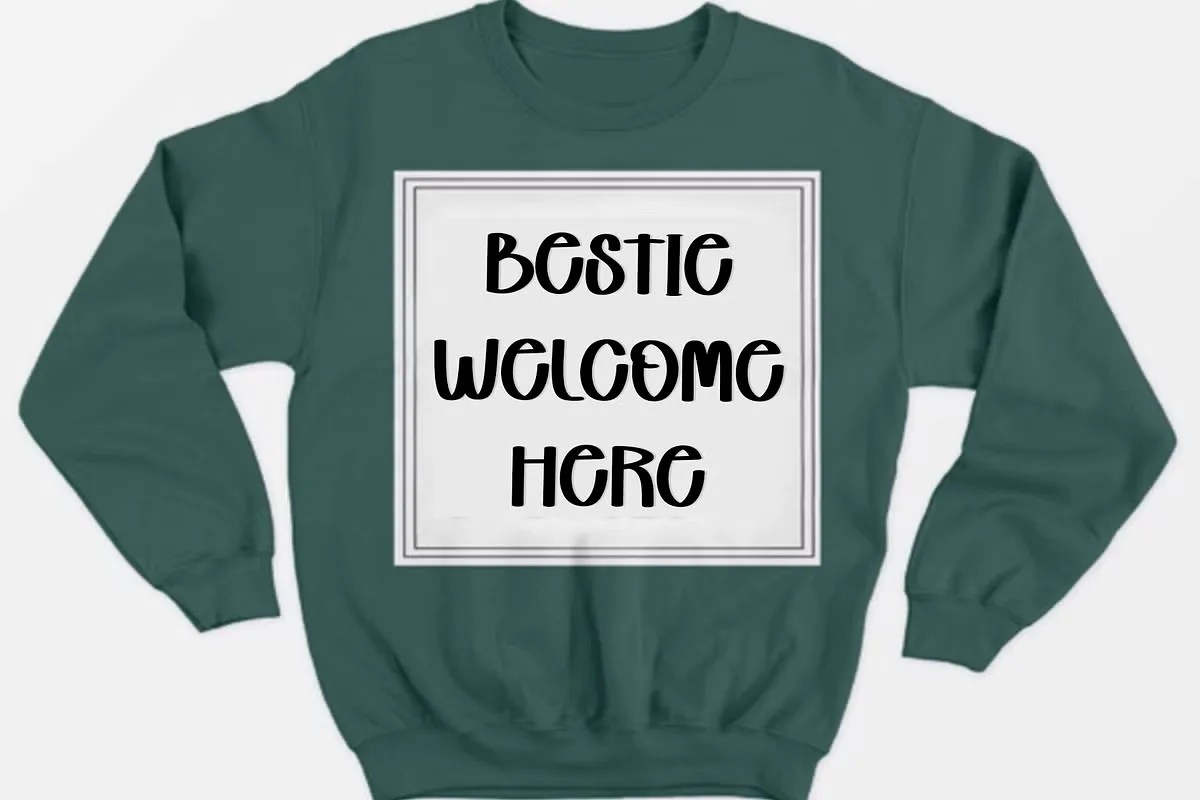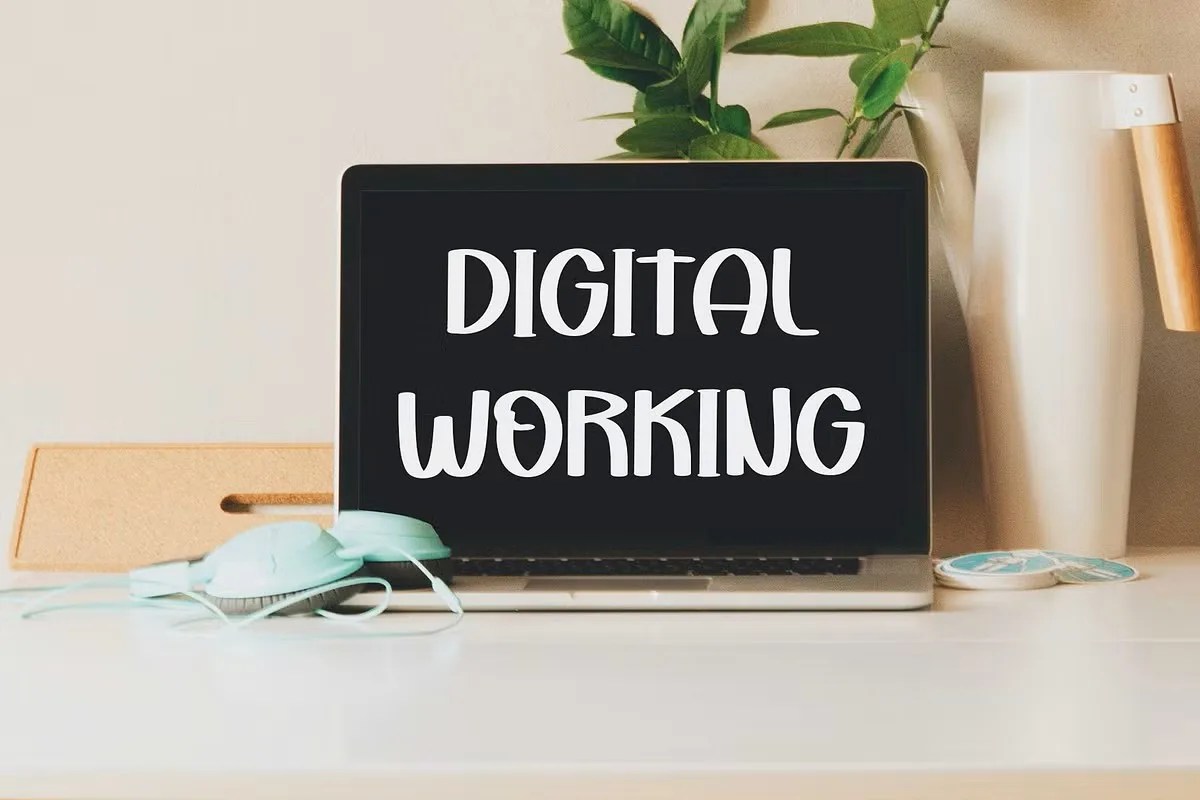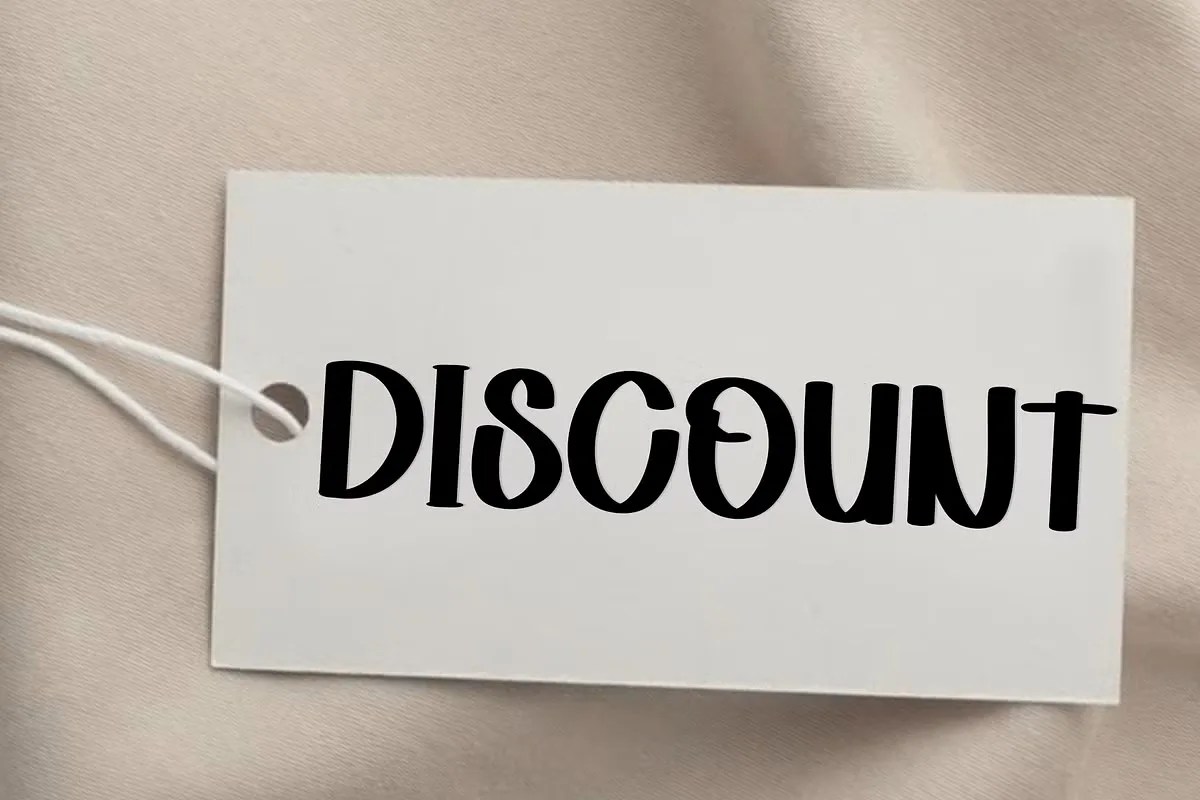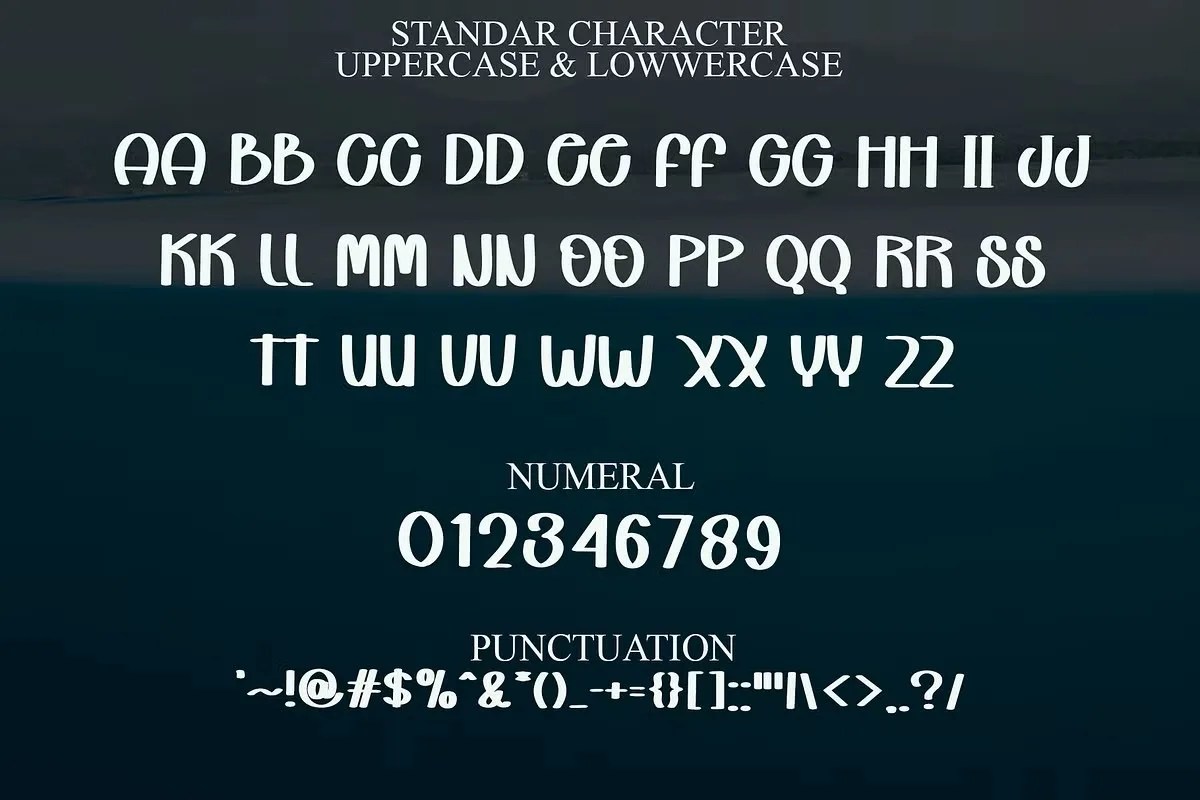
Hello Thicky by InermediaStudio. This is a cheerful and fun bold script font that features chubby, rounded letters bubbling with personality. The font brings a friendly and playful energy to any design it touches. It is perfect for projects that need a soft, approachable, and joyful look. Hello Thicky makes every word feel like a warm welcome, instantly creating a positive and inviting atmosphere.
This font is a fantastic tool for spreading positivity and charm. Specifically, its playful nature is perfect for children’s book titles and cute apparel designs. It can also help create a friendly brand identity for a toy store, a candy shop, or a dessert blog. Furthermore, this fun bold script font excels in social media content. Use it to design eye-catching graphics for quotes, announcements, or promotions. Its cheerful vibe guarantees your audience will smile.
• Cheerful and fun bold script style
• Features chubby, rounded letterforms
• Ideal for kids’ designs, quotes, and branding
• Adds a playful and approachable feel
Hello Thicky